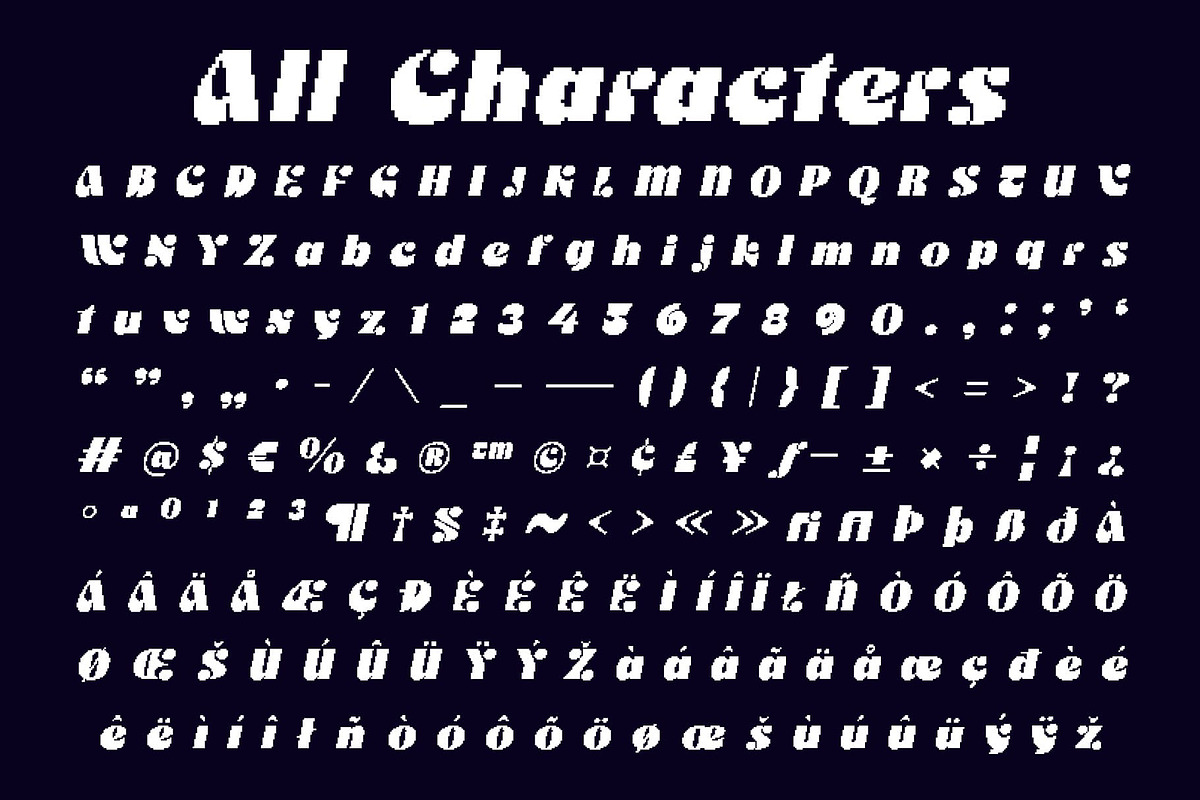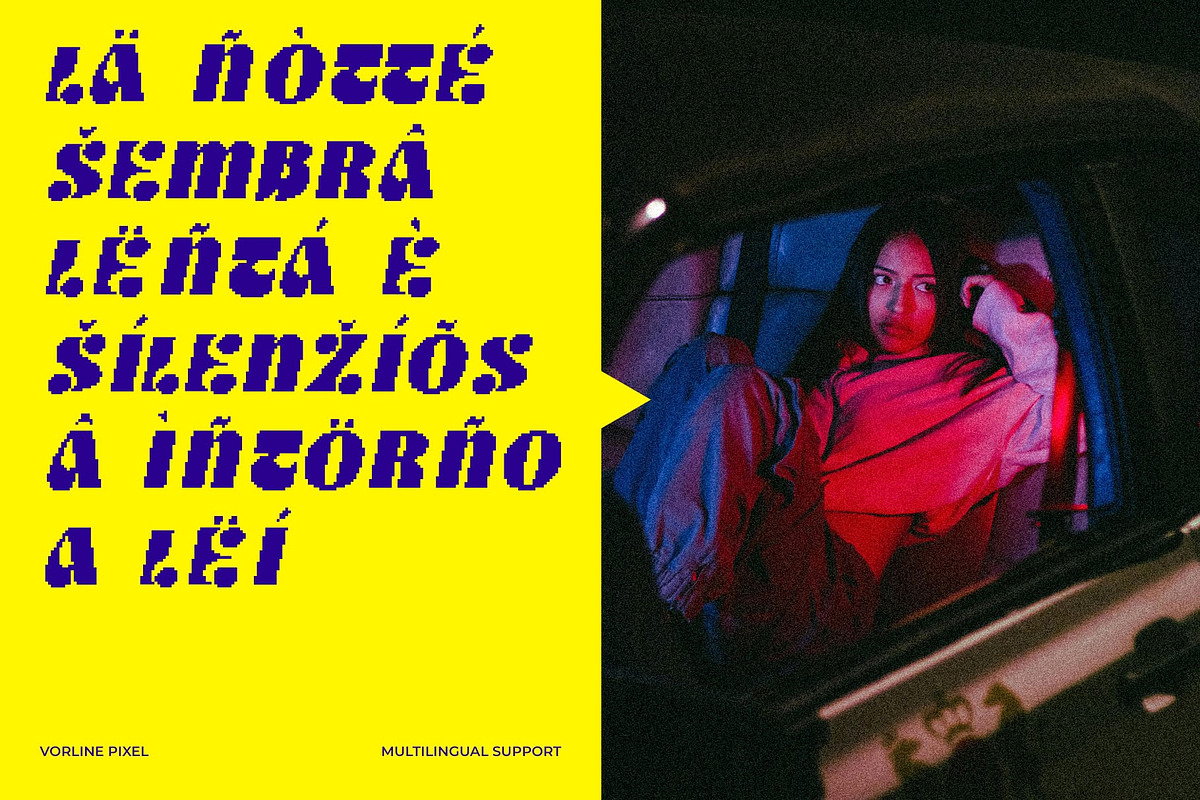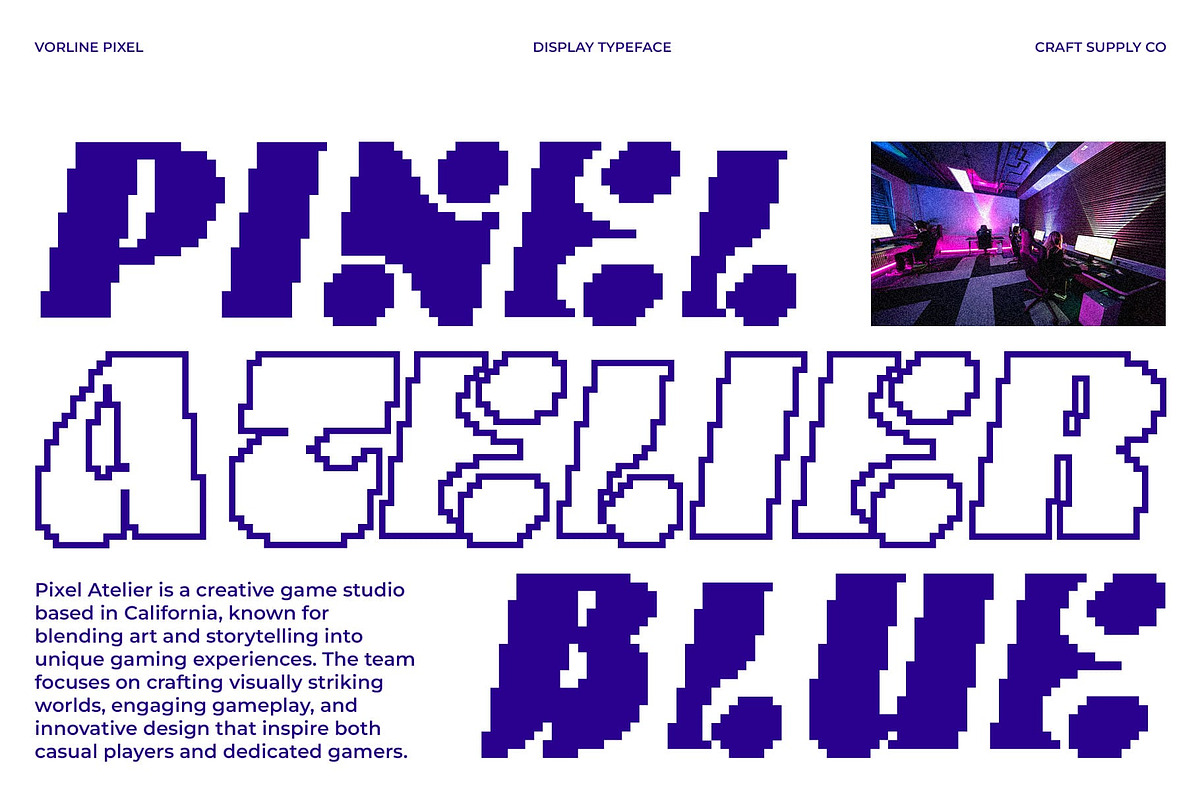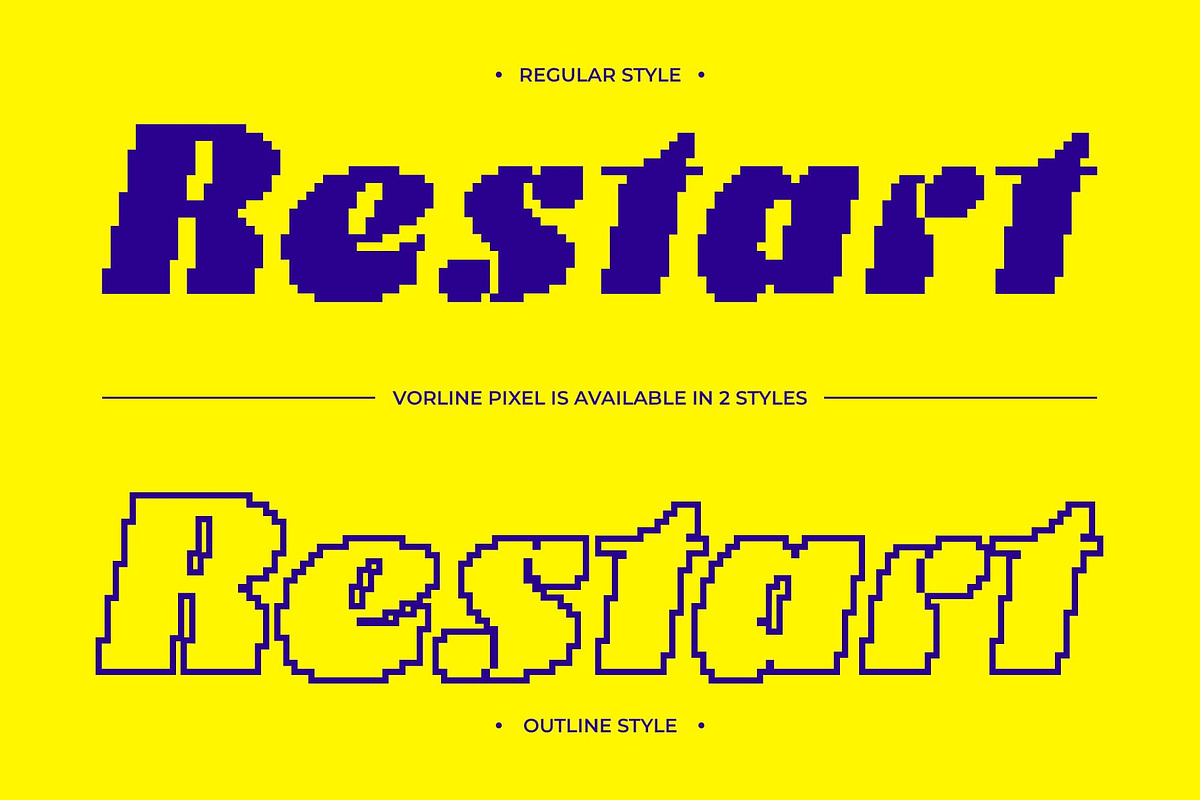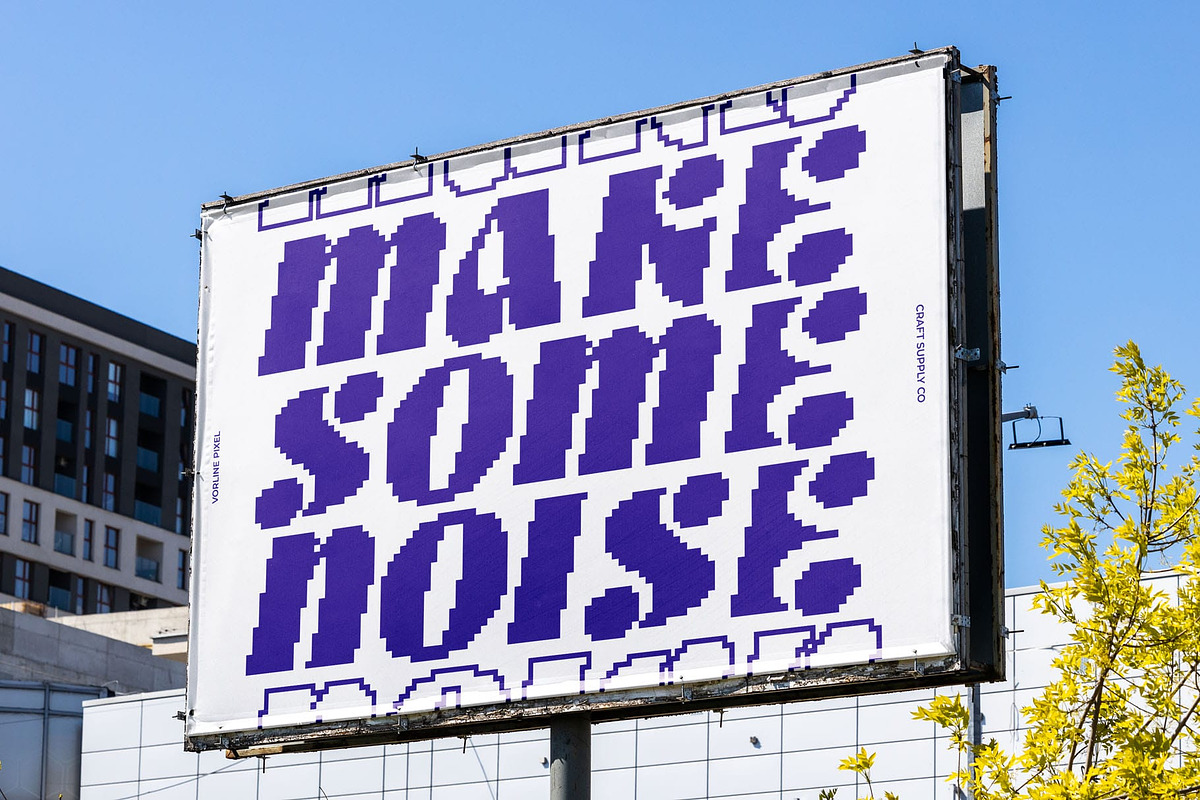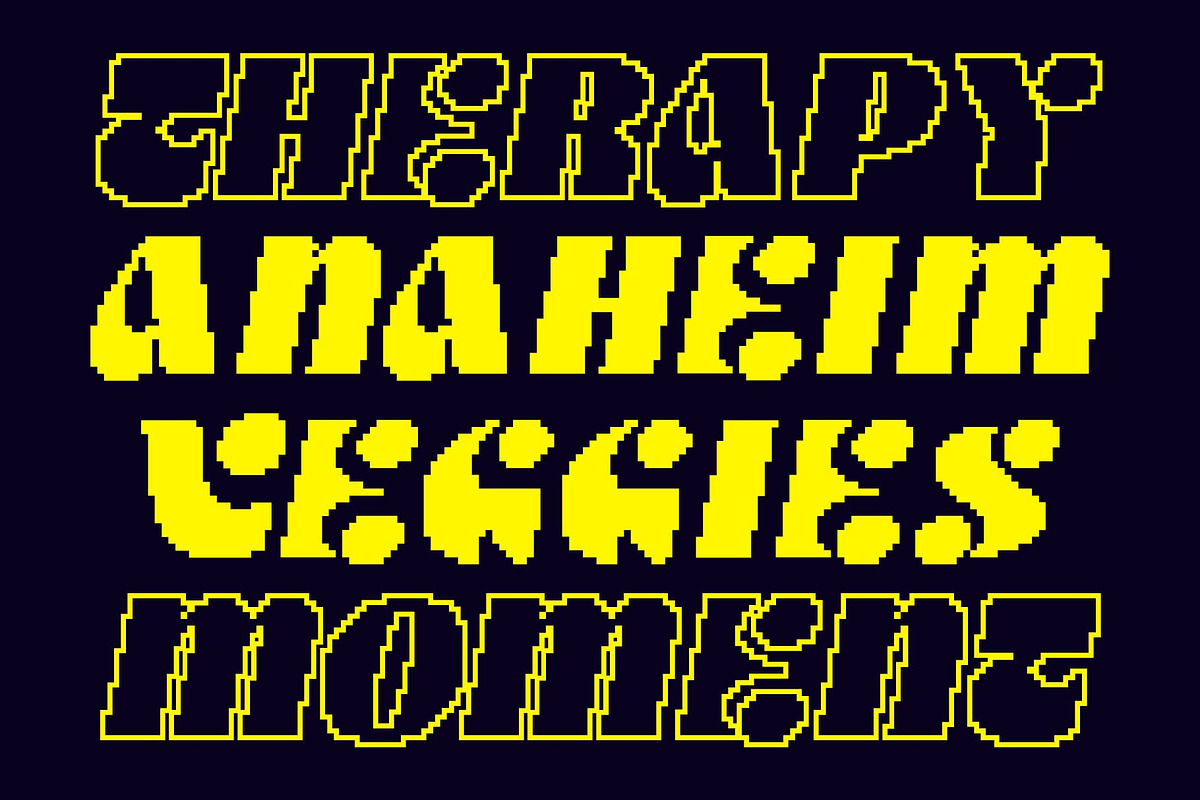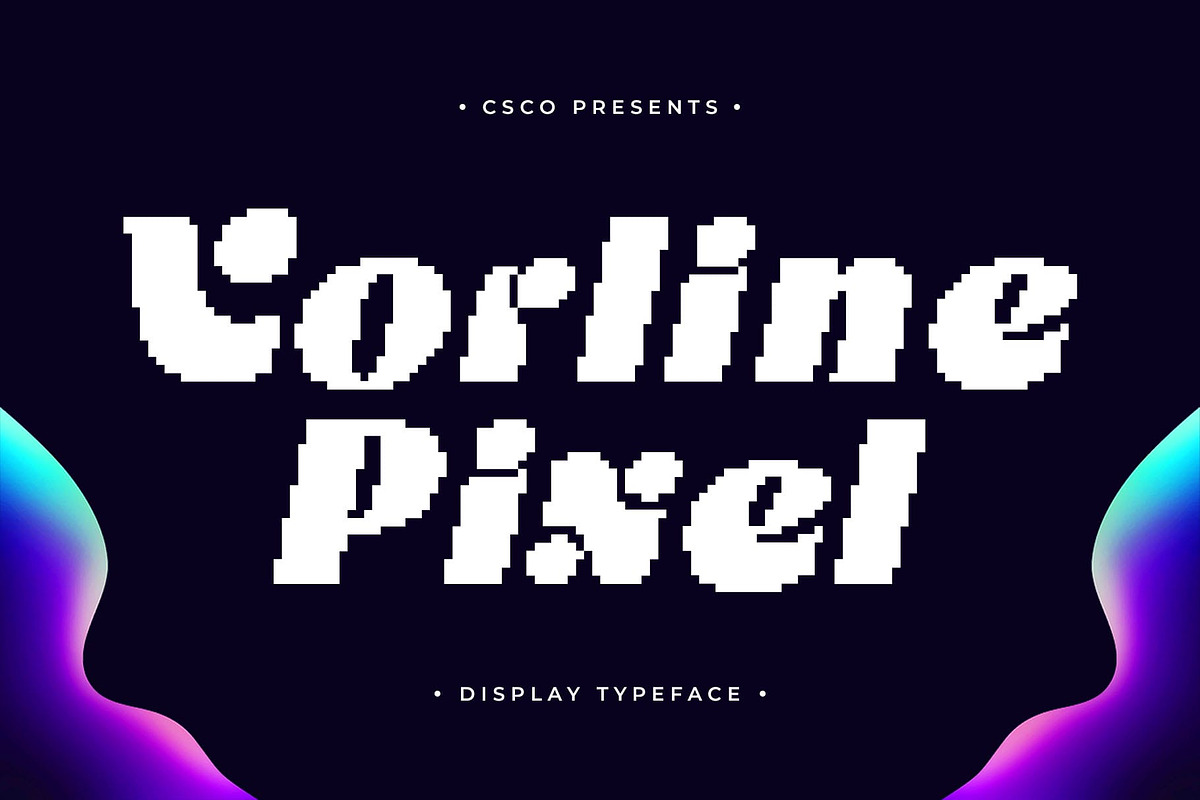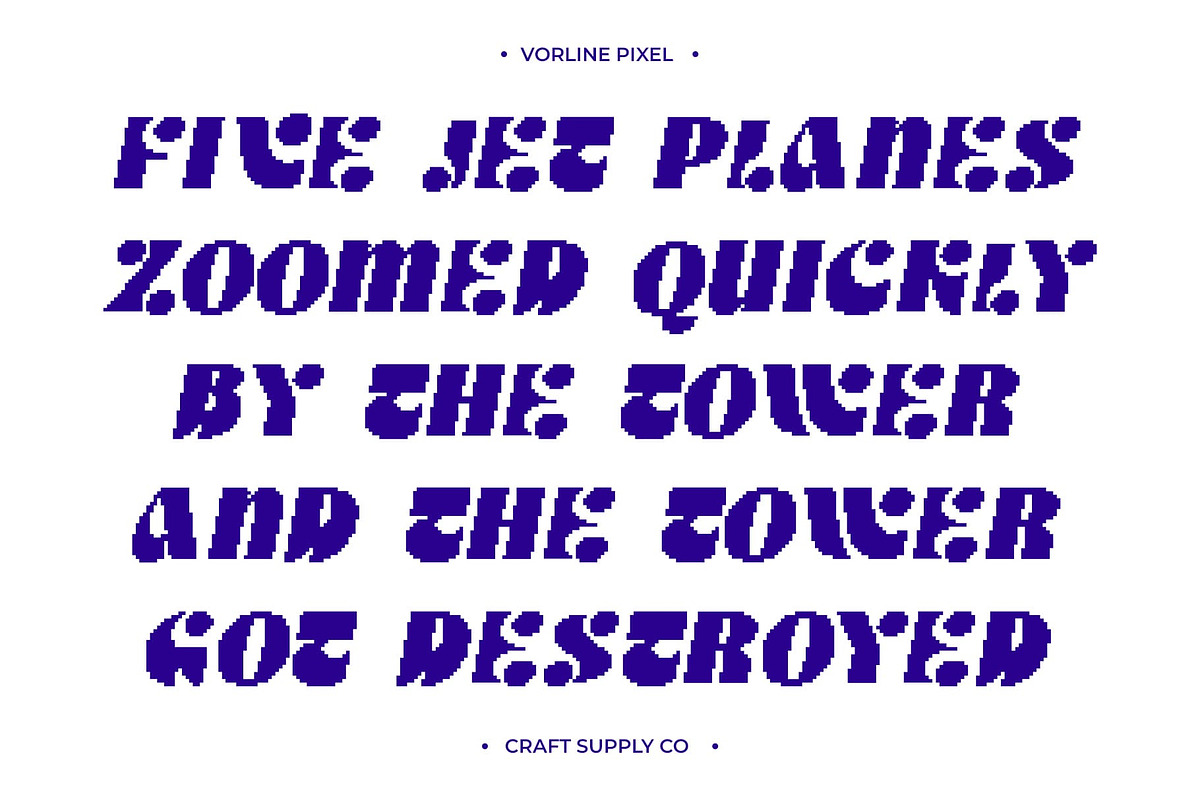
Vorline Pixel
Vorline Pixel – Where Art Nouveau Meets Digital Funk: Bold Art Nouveau Font with Pixel Finish A Fusion of Flow and Digital Edge This is takes inspiration from the bold curves and ornamental flow of Art Nouveau, reimagined with a contemporary digital touch. Its funky, energetic strokes exude movement and rhythm, while the pixel detailing introduces a modern, playful edge. The result is a font that feels both artistic and futuristic. Dynamic Curves for Expressive Design The sweeping curves of font create a strong sense of motion and personality. Each letterform bursts with energy, giving your designs a unique visual rhythm. This dynamic quality makes it perfect for projects that need to stand out whether it’s a poster, headline, or brand identity with bold character. Pixel Detailing for Modern Vibrancy What sets fonts apart is its pixel finish, which transforms its decorative shapes into vibrant digital expressions. The pixel texture adds depth and contrast, bridging the gap between nostalgic retro styles and contemporary design. This detail makes it ideal for creative works that embrace both history and innovation. Perfect for Music, Art, and Creative Branding This is shines in projects that celebrate creativity and culture. From music festival posters and art exhibition graphics to experimental branding, it radiates energy and boldness. Designers seeking a font that merges expressive tradition with a digital twist will find an inspiring choice. Download Type Speciment: --- What you get : - Vorline Pixel Regular - Vorline Pixel Outline Features : - Uppercase and lowercase characters - Numerals and Punctuation (OpenType Standard) - Accents (Supports Multilingual Characters) - PUA Encoding --- You can use this typeface without needing any specialized software. --- If you have any inquiries or need assistance, please feel free to contact us. We appreciate your support in enhancing your creative projects! Best regards, Craft Supply Co.